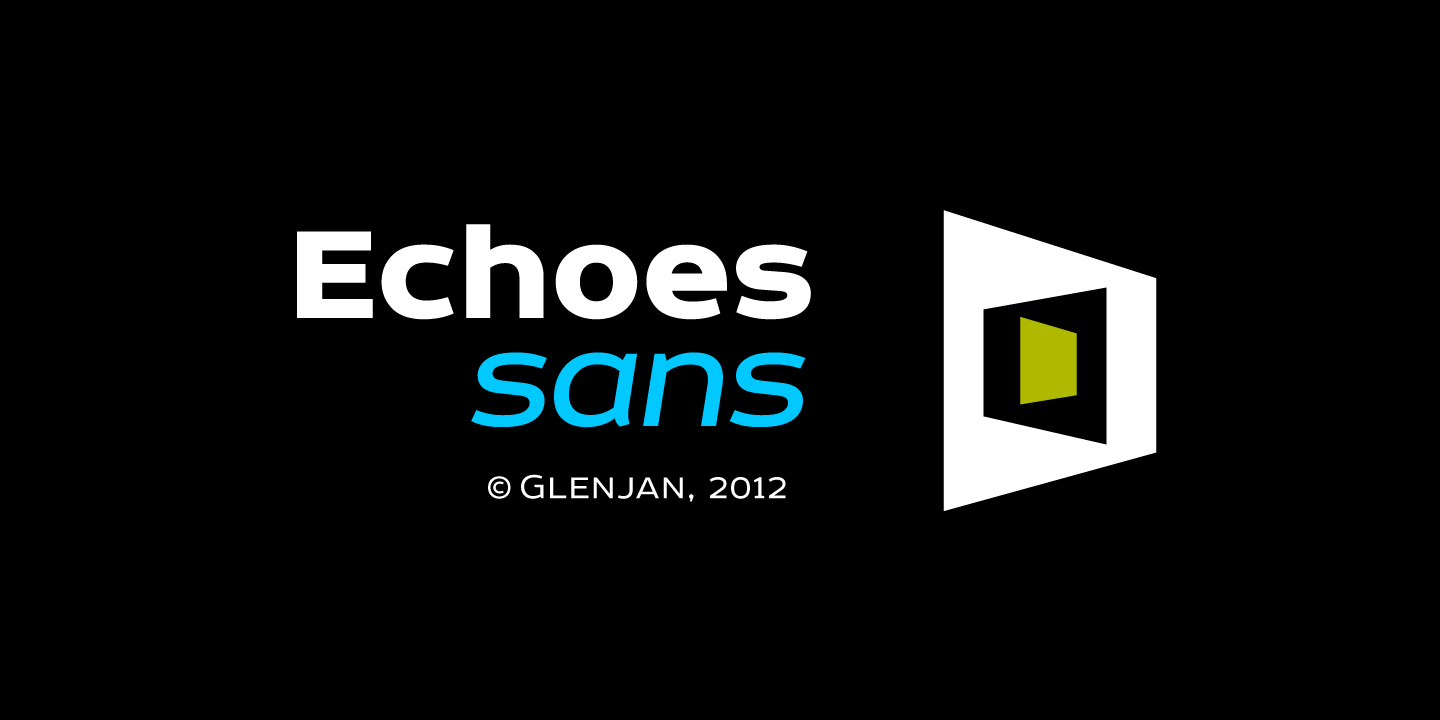
Echoes Sans Font is a strikingly modern and minimalist typeface, skillfully designed for impactful and clean communication in a wide range of contemporary contexts. Imagine it providing the sleek, understated headlines for a cutting-edge tech startup, delivering exceptionally clear and readable body text for an architectural portfolio, or adding a sophisticated, minimalist touch to high-end fashion branding. Its precise geometric forms and often generous spacing make it an excellent choice for digital interfaces, app design, corporate identity, and any project that aims for a refined, spacious, and utterly modern aesthetic. It performs brilliantly across various sizes, ensuring maximum clarity in both digital and print environments.
What makes Echoes Sans Font truly exciting is its ability to convey a sense of quiet authority and sophisticated simplicity. It often features open counters and a clean, almost ethereal quality that gives it a distinct contemporary edge without resorting to overly decorative elements. This thoughtful design allows Echoes Sans Font to create a lasting impression through its clarity and elegance, making it highly adaptable for brands that value precision, innovation, and understated luxury. Designers frequently praise its meticulous crafting, excellent legibility even in small print, and its inherent versatility that allows it to seamlessly integrate into demanding design systems. It's not just a font; it's a statement of refined modernity.
The Echoes Sans Font family is typically well-structured and comprehensive, offering a robust selection of weights and styles to meet a broad spectrum of design requirements. You can generally expect to find a wide array of weights, ranging from a delicate Hairline or Thin, perfect for subtle, elegant accents, to a powerful Black or Heavy, ideal for impactful headlines and strong visual statements. Critically, most Echoes Sans Font families also include corresponding Italic versions for each weight, which significantly enhances its flexibility for creating visual hierarchies and adding dynamic emphasis within your text. This extensive selection ensures remarkable creative control and allows you to achieve the perfect typographic tone for any project. Don't miss out on Echoes Sans Font Free Download for your next design endeavor!